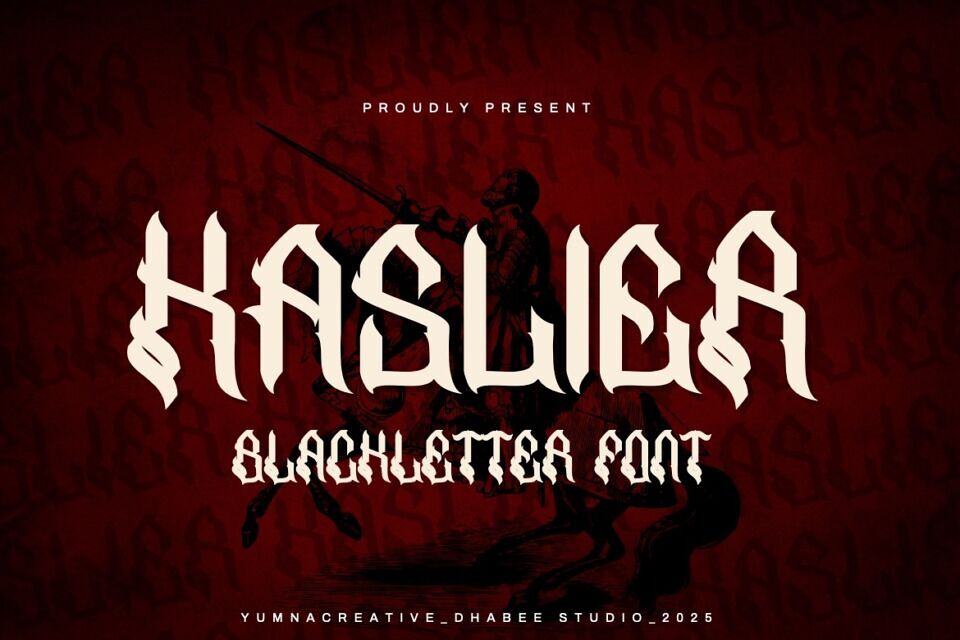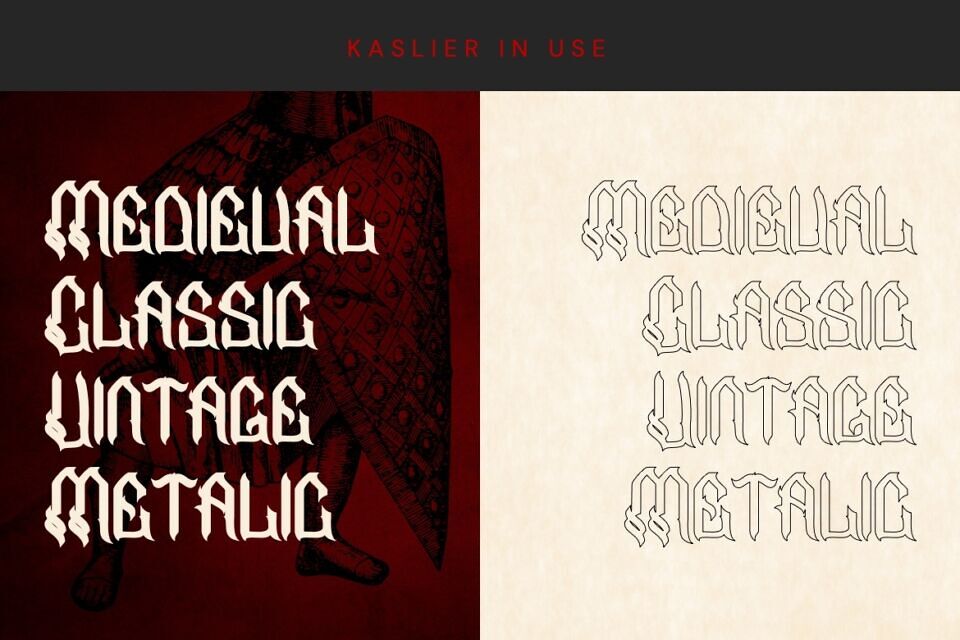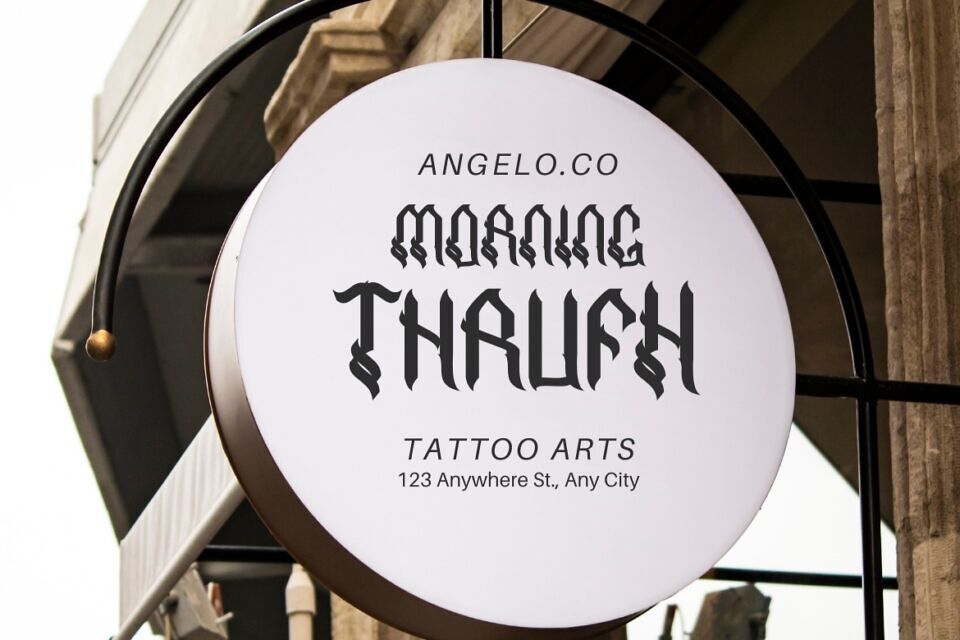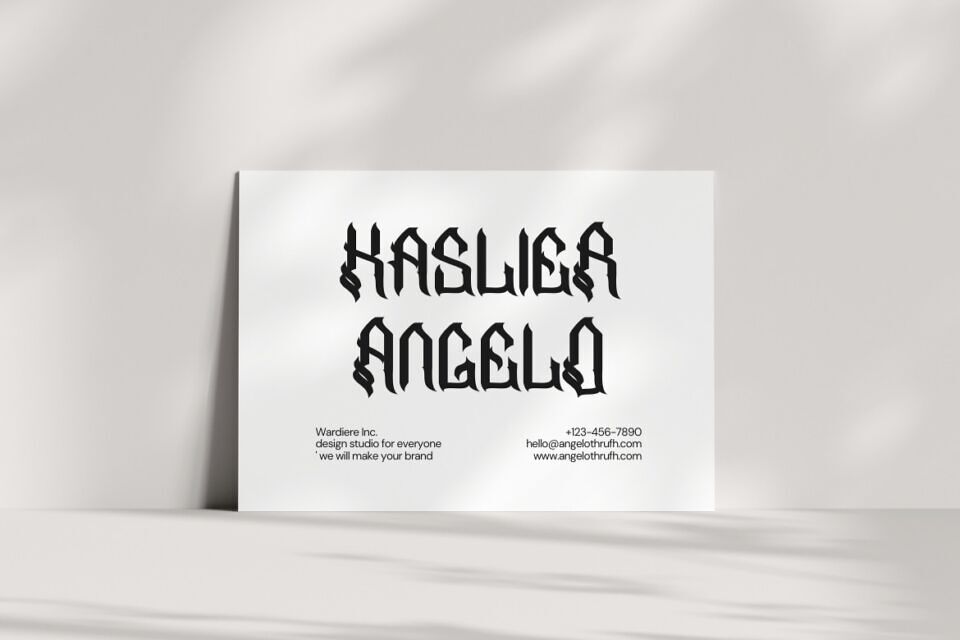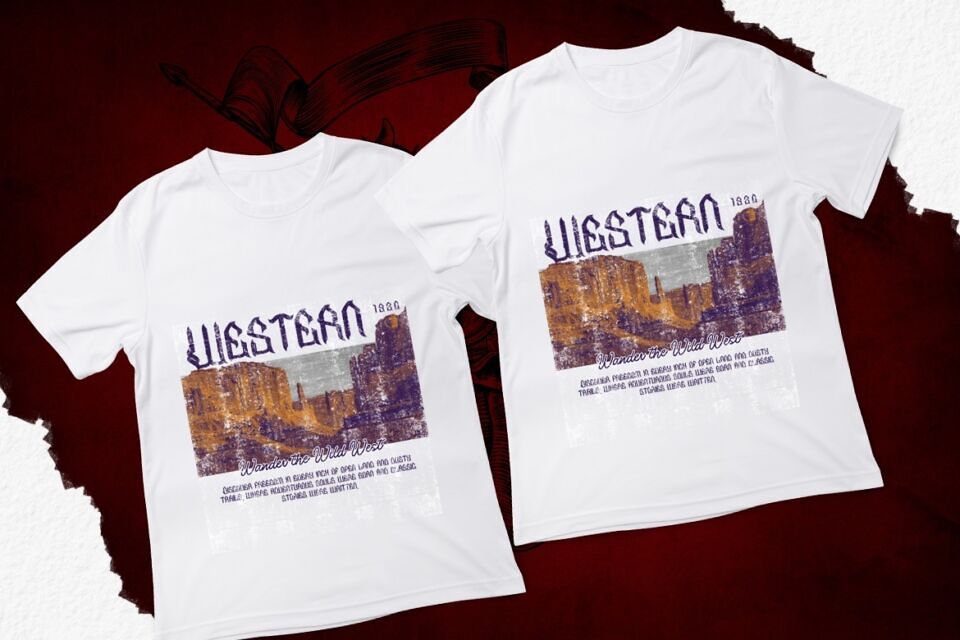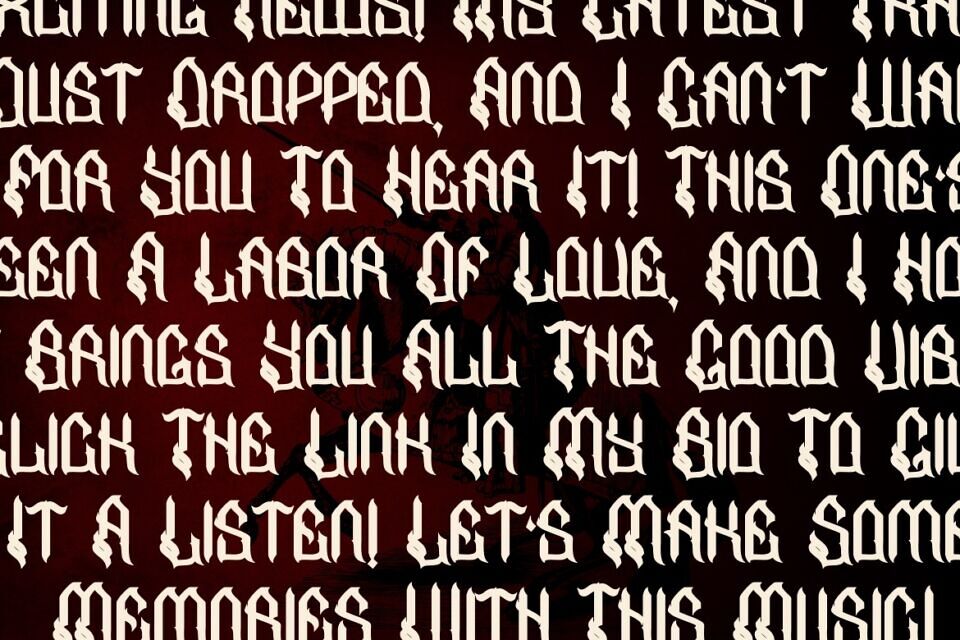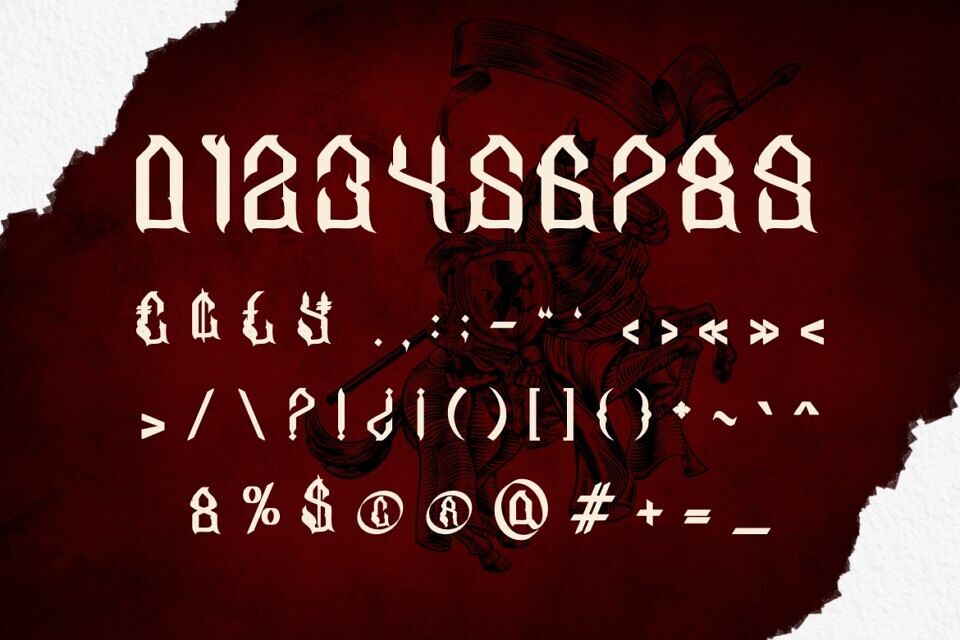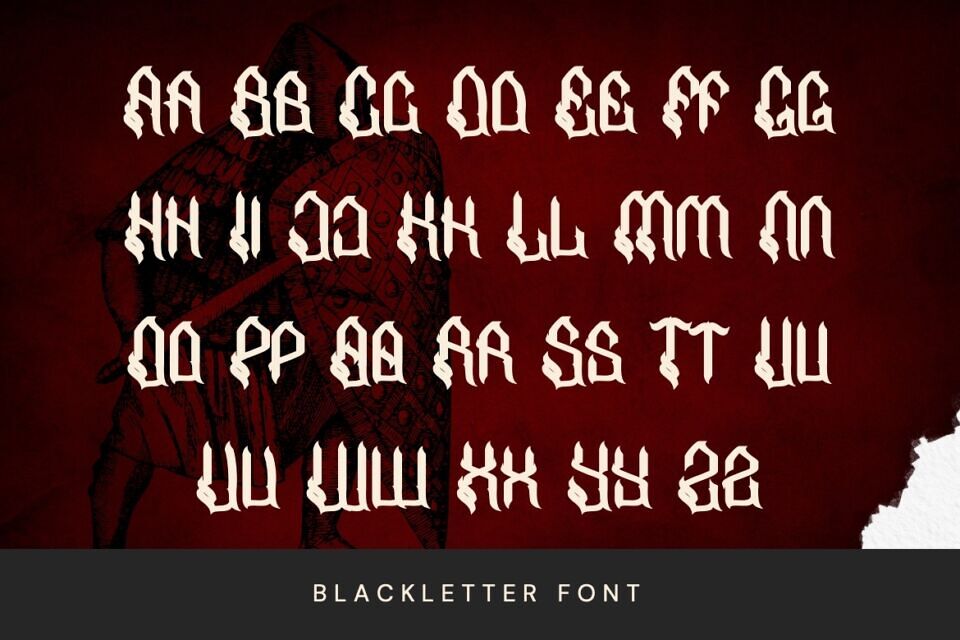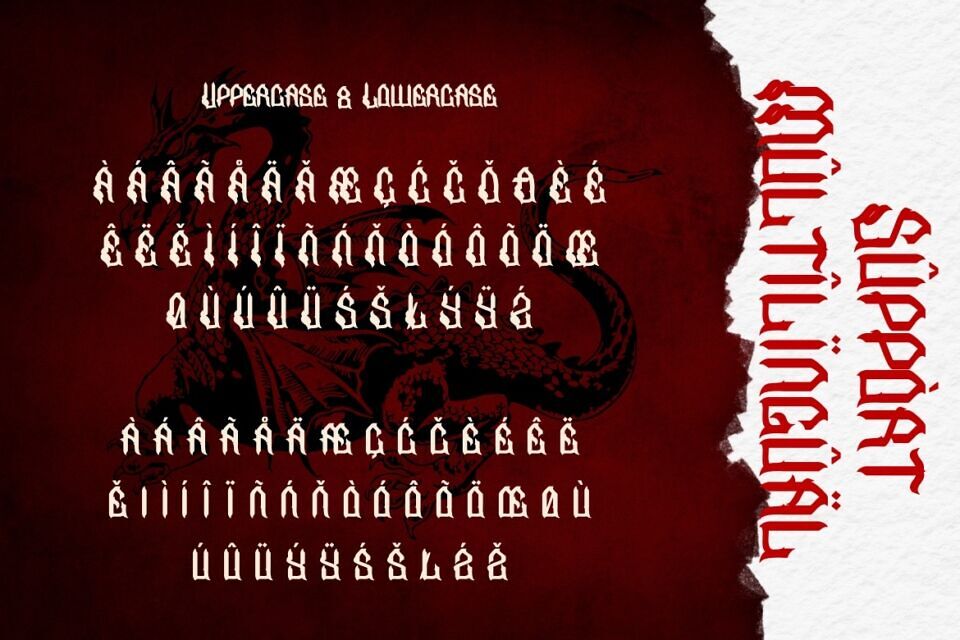
Kaslier Font by Dhabee Studio is a striking blackletter typeface that exudes medieval charm with a modern twist. Its intricate, gothic-inspired design features sharp, angular letterforms, perfect for adding a vintage metal aesthetic to your projects.
Ideal for band logos, album covers, or fantasy-themed branding, Kaslier captures the essence of classic typography while offering versatility with uppercase and lowercase characters, numbers, and symbols.
The font’s bold, dramatic style, showcased against dark, textured backgrounds, evokes a sense of historical depth and rebellious energy, making it a standout choice for designers seeking to make a powerful visual impact.